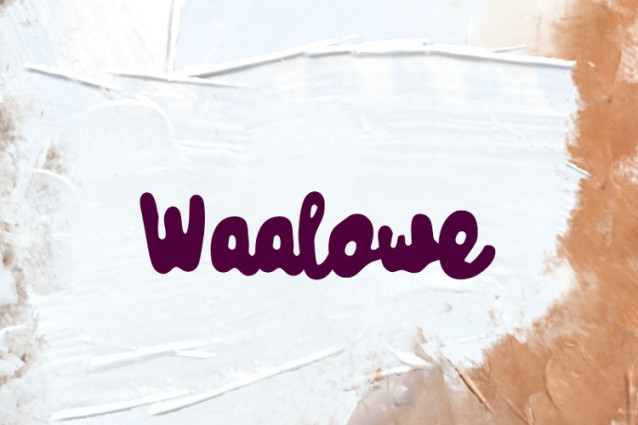
Waalowe Font
Waalowe Font, perfectly fit for branding, logo, wedding things, greeting cards, fashion, lookbook, marketing promotion, anytime you want to look fancy elegant but still casual.